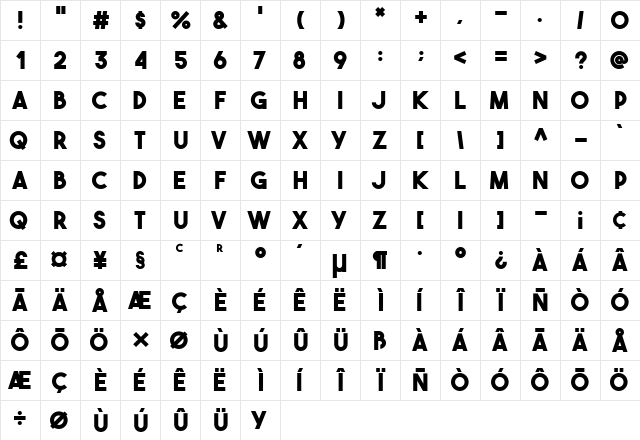
The Bold Font Bold
Design Context for The Bold Font Typeface
The Bold Font takes a measured approach to typography — its balanced proportions and neutral character make it a reliable workhorse for both digital and print work. Its bold stroke weight gives it real presence on the page.